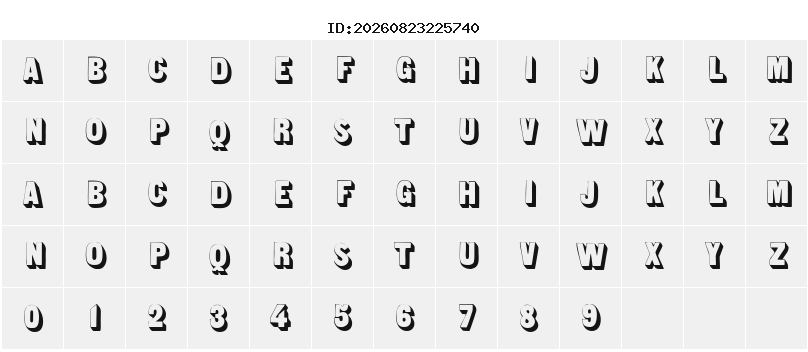
• Font Name: Sans Serif Shaded
• Designer: Dieter Steffmann
• Description: Sans Serif Shaded von Stephenson, Blake & Co. Ltd., Sheffield. Eine der huebschesten Endstrichlosen aus dem zweiten Viertel des 19. Jahrhunderts. Digitalisiert durch Dieter Steffmann, Kreuztal.
Sans Serif Shaded.ttf is a modern, elegant sans-serif font designed for ultimate readability and visual harmony. Perfect for branding, headlines, web design, and print materials.